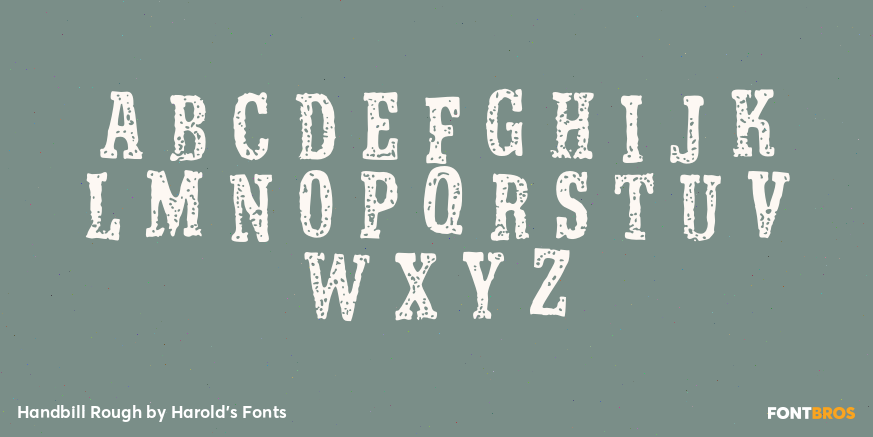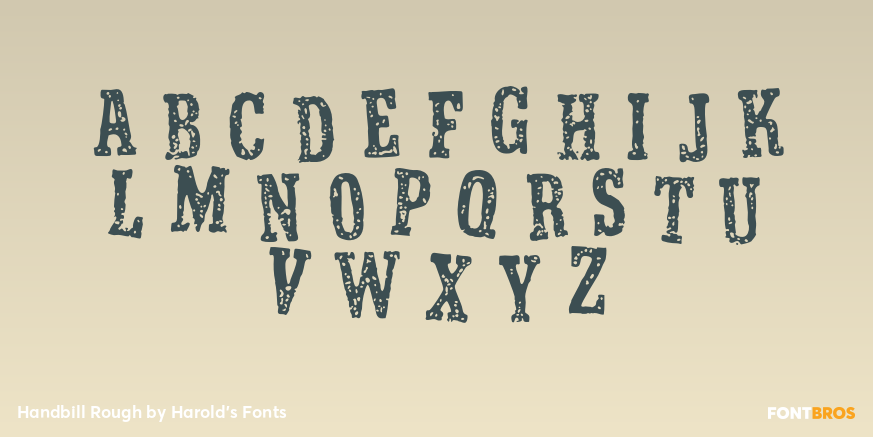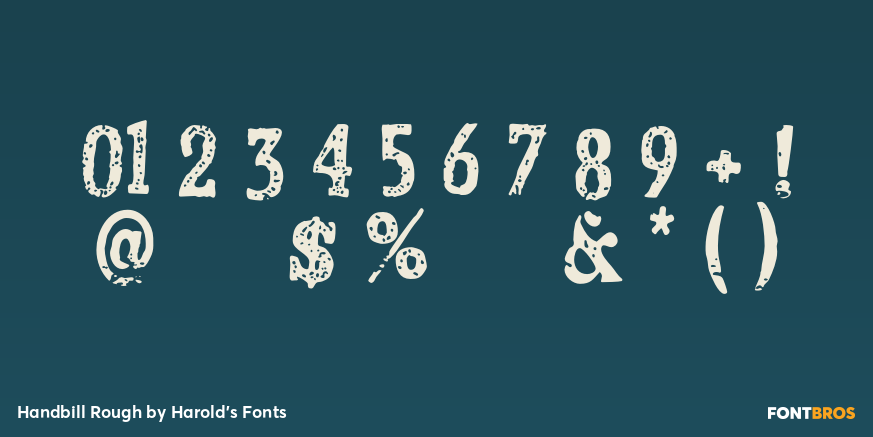
Handbill Rough
HANDBILL is a set of 4 fonts inspired by two sets of vintage rubber stamps. As there were no lowercase letterforms, I've included a different impression or placement of the caps in the lowercase positions to create a more random, hand-stamped fell. Available in Regular, Rough, 3D, and Fill; Fill can be used alone or layered in another color with the 3D font.